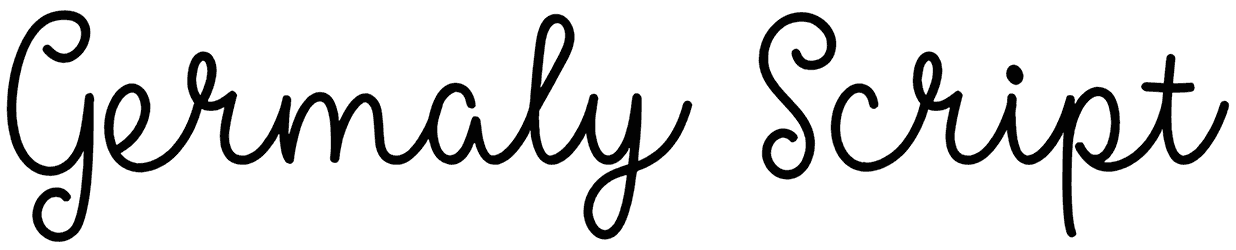
Germaly Script Font
We have just added a lovely script font that comes with rounded edges and angular characters to our archive. Storybook covers, illustrations, headlines, stationery, and social media posts are the best possible field for using this magical masterpiece, mostly known as Germaly Script.
Aside from all of its numerous advantages, it has the real potential to add a vibe of dynamism, personalization, tenderness, or vitality to all of your editorial projects.